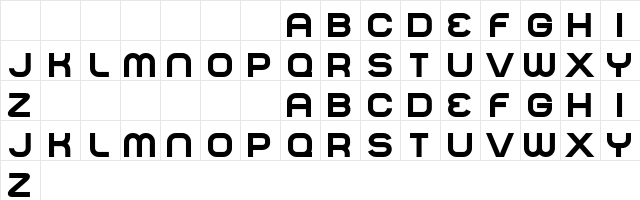
NORMAL Regular
| Foundry | Billy Argel |
| Designer | Billy Argel |
NORMAL takes a measured approach to typography — its balanced proportions and neutral character make it a reliable workhorse for both digital and print work.